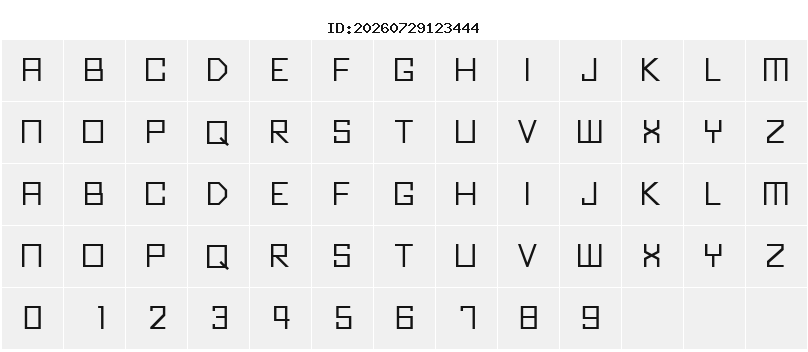
Kubus Preview
• Font Name: Kubus
• Font ID: 1.000;PYRS;Kubus-Bold
• Full Font Name: Kubus Bold
• Version: Version 1.00 2012
• PostScript Name: Kubus-Bold
• Designer: André Noboru Uenojo
• Manufacturer: PYRS Fontlab Ltd. / Made with FontLab
• Description: Kubus Bold is a font by PYRS Fontlab Ltd. / Made with FontLab, designed by André Noboru Uenojo in 2012.
About Kubus.ttf
Kubus.ttf is a modern, elegant sans-serif font designed for ultimate readability and visual harmony. Perfect for branding, headlines, web design, and print materials.